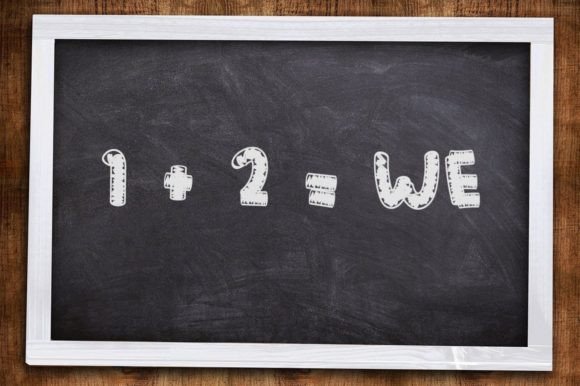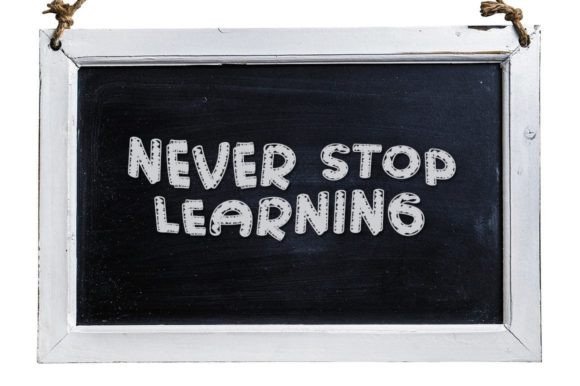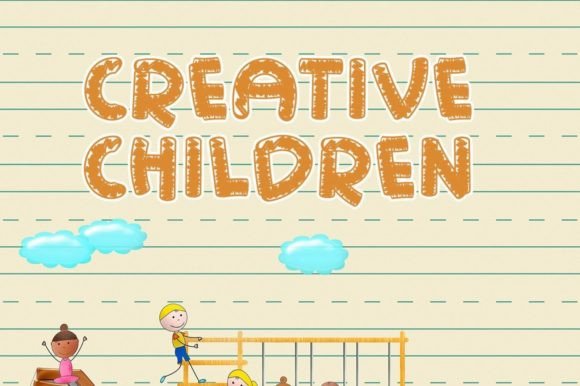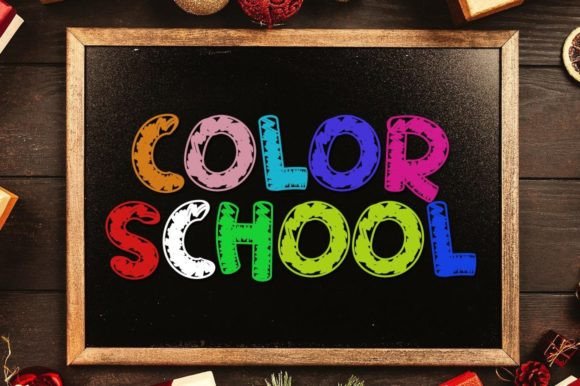
Introducing Color School Font: Adding Playfulness to Your Designs
Are you a designer, crafter, or educator looking for a font that embodies the spirit of childhood and learning? Look no further than the Color School Font, a delightful and vibrant display font that’s perfect for kids’ activities, school projects, and more. In this article, we’ll dive into the world of Color School Font, exploring its features, benefits, and uses, and show you how to make the most of this fantastic font.
What is Color School Font?
Color School Font is a cute and colorful display font designed to bring a sense of playfulness and authenticity to your designs. With its chunky lettering and bright colors, this font is sure to capture the attention of kids and adults alike. Whether you’re creating materials for a school project, designing activity sheets for kids, or simply looking for a fun and engaging font for your craft projects, Color School Font is the perfect choice.
Key Features of Color School Font
- Playful and Authentic: Color School Font embodies the spirit of childhood and learning, making it perfect for kids’ activities and school projects.
- Chunky Lettering: The font’s chunky lettering makes it easy to read and adds a fun, playful touch to your designs.
- Colorful: With its bright and vibrant colors, Color School Font is sure to add a pop of color to your designs.
- Versatile: This font is perfect for a wide range of design projects, from activity sheets and school projects to craft projects and more.
Benefits of Using Color School Font
So why choose Color School Font for your design projects? Here are just a few benefits of using this fantastic font:
- Adds Visual Interest: The colorful and chunky lettering of Color School Font adds visual interest to your designs, making them more engaging and attention-grabbing.
- Conveys Playfulness: This font embodies the spirit of childhood and learning, making it perfect for designs that need to convey a sense of playfulness and fun.
- Easy to Read: The chunky lettering of Color School Font makes it easy to read, even for kids and those with visual impairments.
- Versatile: This font can be used for a wide range of design projects, from digital designs to print materials.
Using Color School Font in Your Designs
So how can you use Color School Font in your designs? Here are a few ideas to get you started:
- Kids’ Activity Sheets: Use Color School Font to create fun and engaging activity sheets for kids, complete with colorful illustrations and chunky lettering.
- School Projects: Add a touch of personality to school projects with Color School Font, perfect for headings, titles, and more.
- Craft Projects: Use Color School Font to add a playful touch to your craft projects, from DIY signs to handmade cards.
- Digital Designs: This font is perfect for digital designs, from social media graphics to blog posts and more.
Tips and Tricks for Getting the Most Out of Color School Font
Here are a few tips and tricks for getting the most out of Color School Font:
- Experiment with Colors: Don’t be afraid to experiment with different colors and color combinations to find the perfect look for your design.
- Mix and Match Fonts: Try pairing Color School Font with other fonts to create a unique and visually interesting design.
- Use it Sparingly: While Color School Font is perfect for headings and titles, use it sparingly to avoid overwhelming your design.
In conclusion, Color School Font is a fantastic addition to any designer’s toolkit, offering a unique and playful way to add visual interest and personality to your designs. With its chunky lettering, bright colors, and versatility, this font is perfect for kids’ activities, school projects, craft projects, and more. So why not give Color School Font a try today and see how it can bring your designs to life?